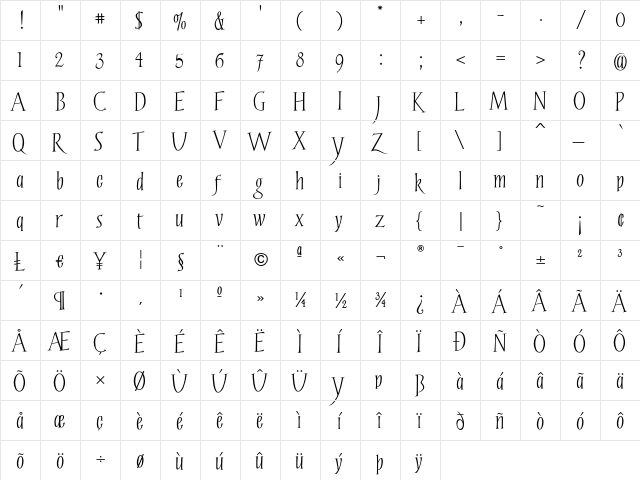
It's My Party Regular
Design Context for It's My Party Typeface
It's My Party is a composed and adaptable typeface that performs quietly and consistently across a wide range of design contexts.